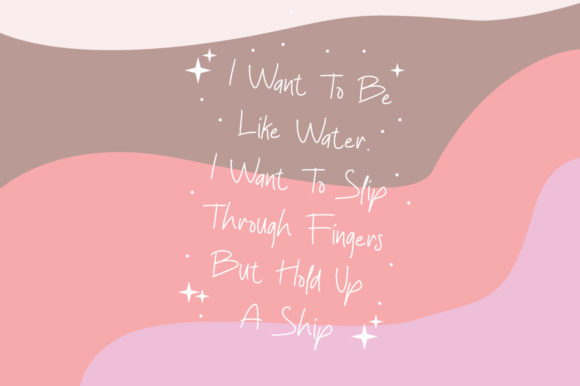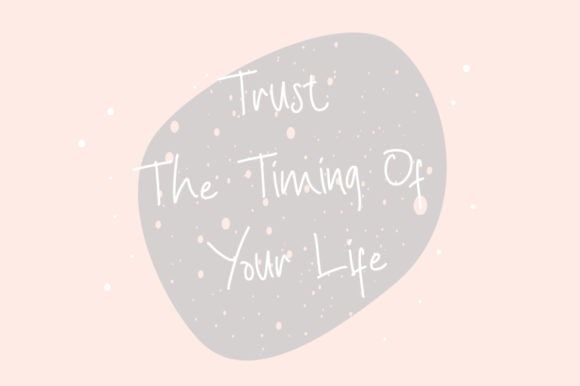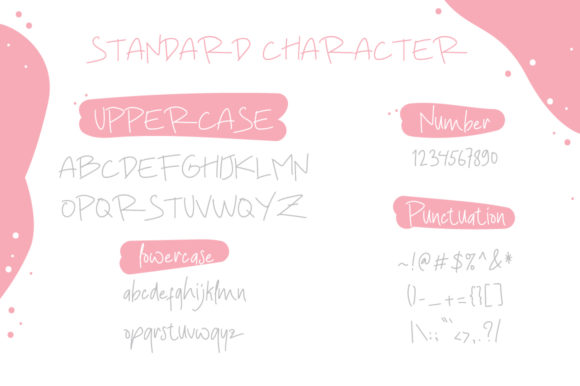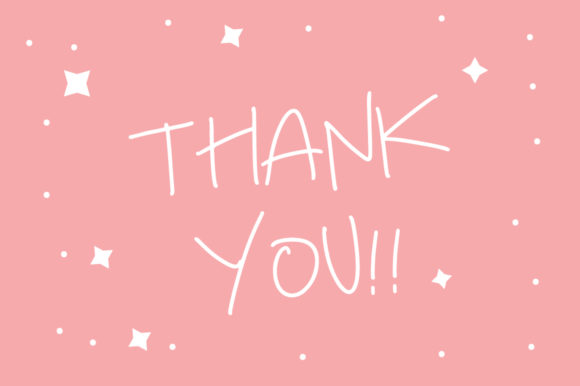
Sasher Font
About Sasher Font
Sasher is a charming and dainty handwritten font that adds a touch of cuteness and elegance to any design. With its delicate letterforms and playful style, it is perfect for various creative projects, from social media graphics to DIY crafts.
The cute and whimsical nature of Sasher makes it an excellent choice for adding personality and charm to your designs. Whether you’re creating Instagram posts, blog graphics, or personalized invitations, this font will turn your creative ideas into true pieces of art. Its handcrafted feel and unique character make it stand out and capture attention.
Sasher’s dainty and flowing letterforms create a sense of elegance and grace. Each letter is carefully crafted, maintaining a balanced and harmonious appearance. This makes the font not only visually appealing but also easy to read and comprehend.
One of the great things about Sasher is its versatility. It can be used for a wide range of projects, including branding, packaging, logo design, stationery, and more. Its delicate and handwritten style adds a personal touch and a sense of authenticity to your designs.
Whether you’re a calligraphy enthusiast or a design professional looking for a font that exudes creativity and uniqueness, Sasher is a fantastic choice. Its cute and dainty aesthetic brings a touch of whimsy and playfulness to your work, making it perfect for adding a delightful and artistic flair.
In summary, Sasher is a cute and dainty handwritten font that transforms your creative ideas into true pieces of art. With its playful style and delicate letterforms, it adds charm, elegance, and authenticity to a wide range of projects. Let Sasher be your go-to font for Instagram posts, DIY crafts, and any design that needs a touch of cuteness and creativity.